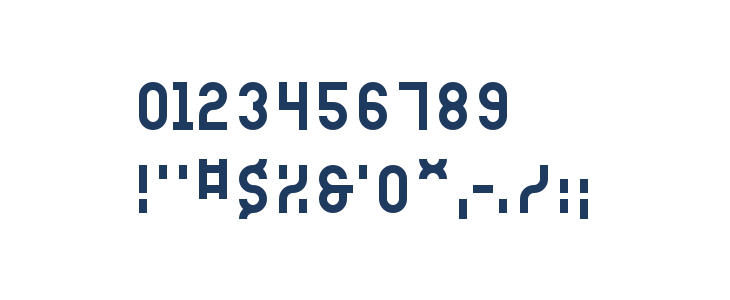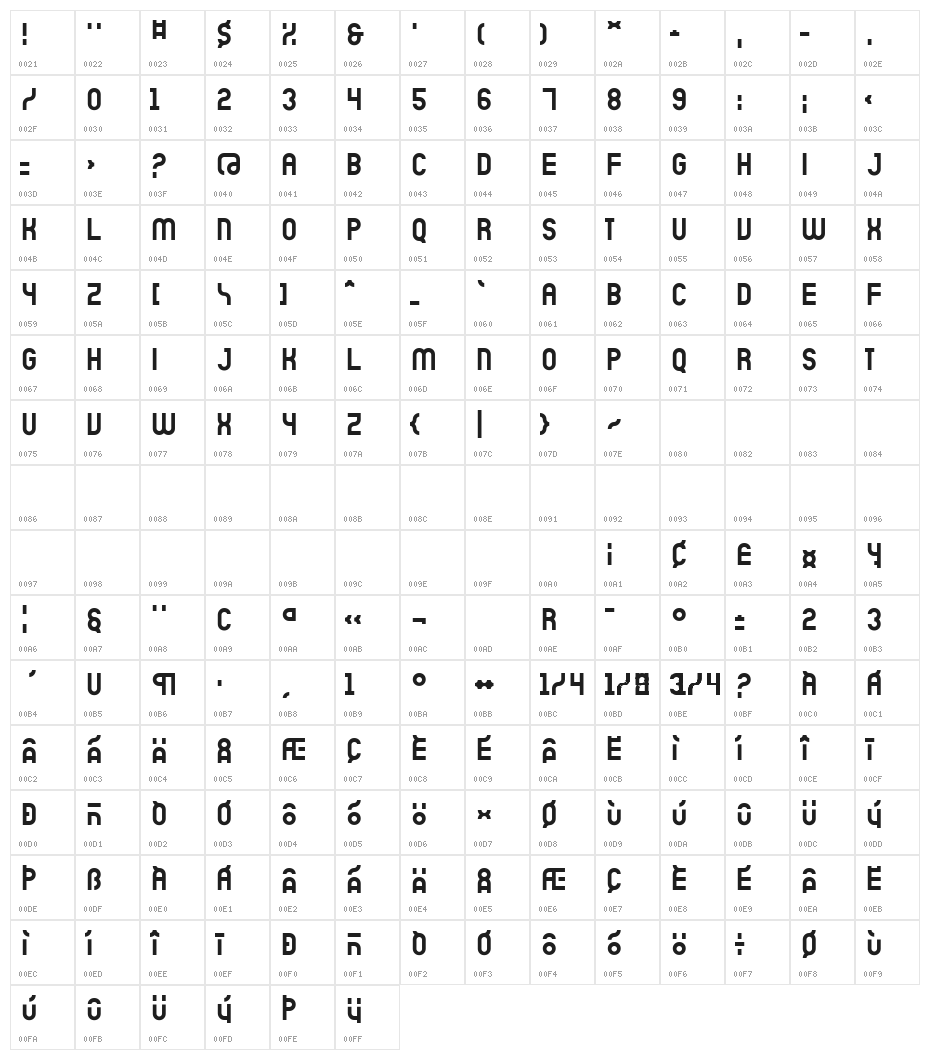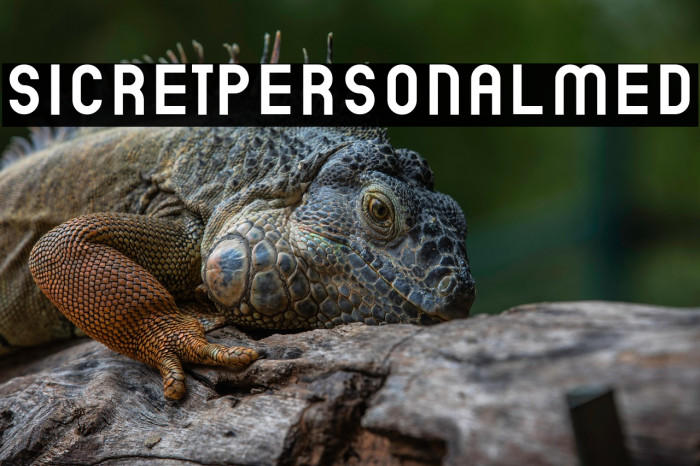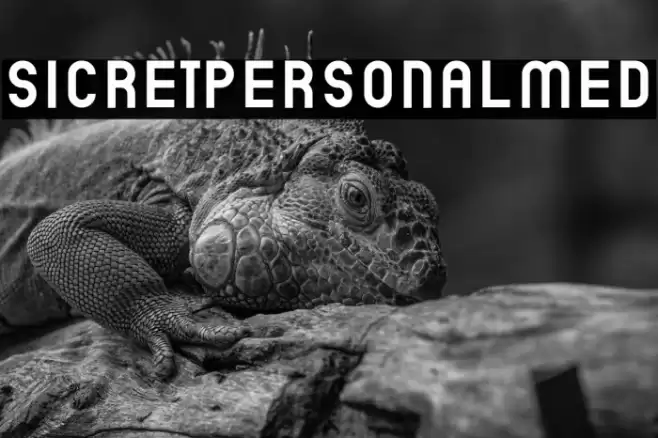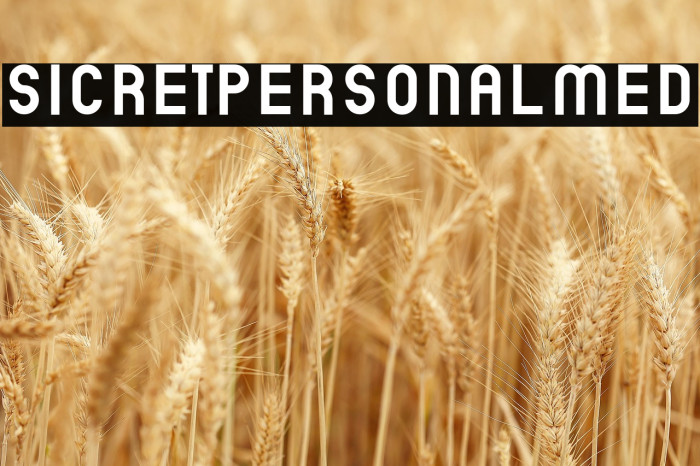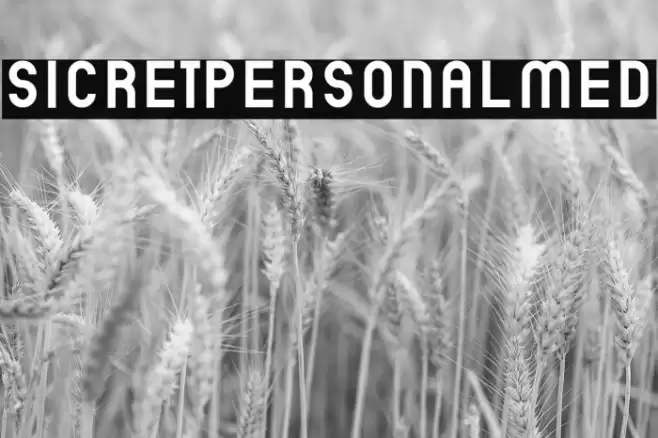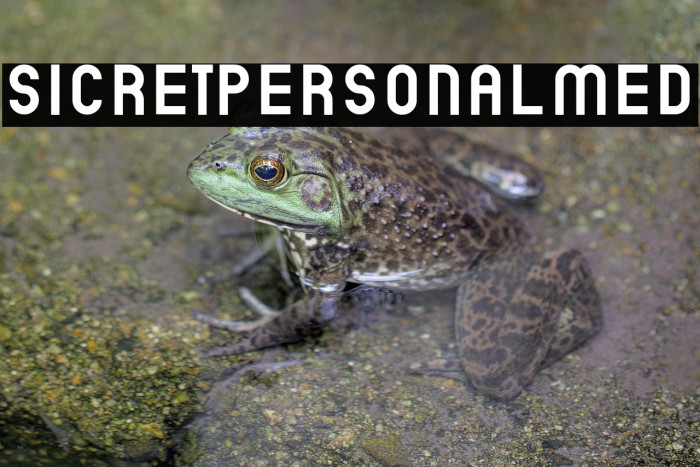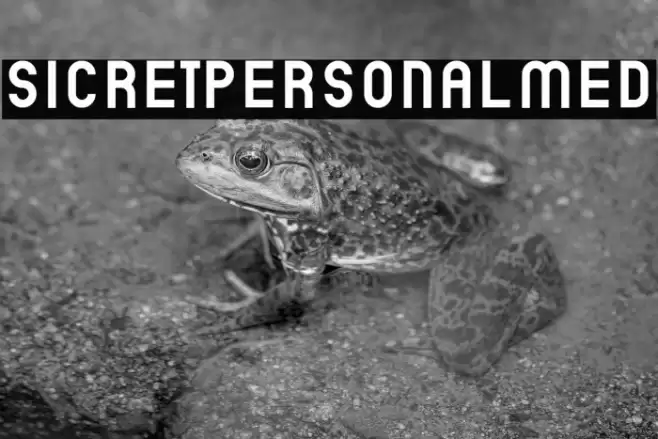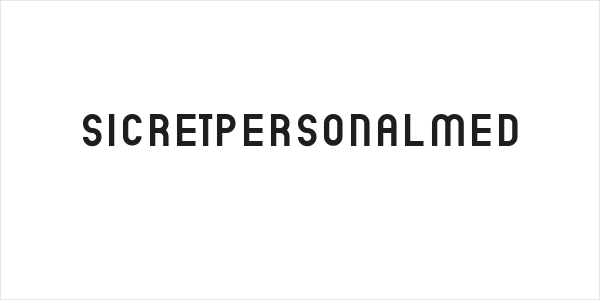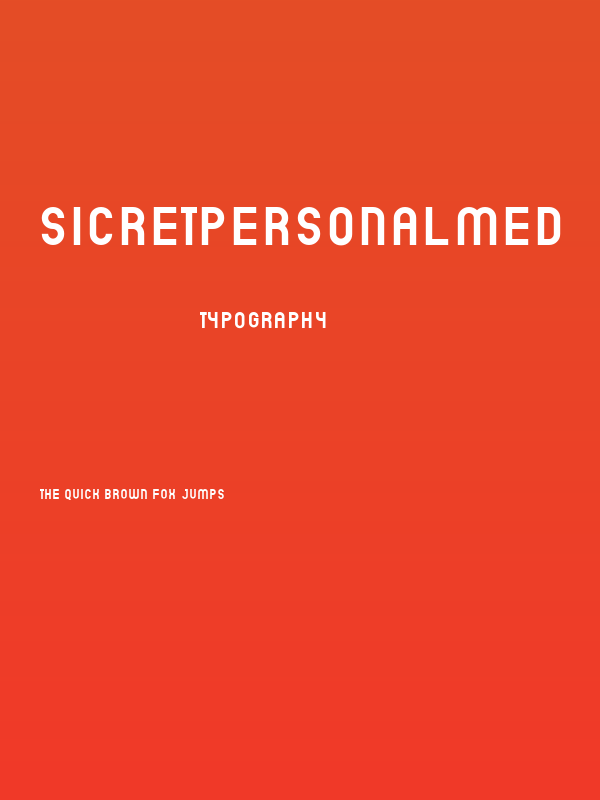
SicretPERSONALMed Font
SicretPERSONALMed Description
This font features a bold and modern design with a geometric structure. The characters are uniform in width, creating a monospaced appearance. The uppercase letters have a strong presence with rounded edges, while the lowercase letters maintain a consistent style. The numerals are clear and easy to read, matching the overall aesthetic. Special characters are distinct and well-integrated into the design. The font's clean lines and bold weight make it suitable for various applications.